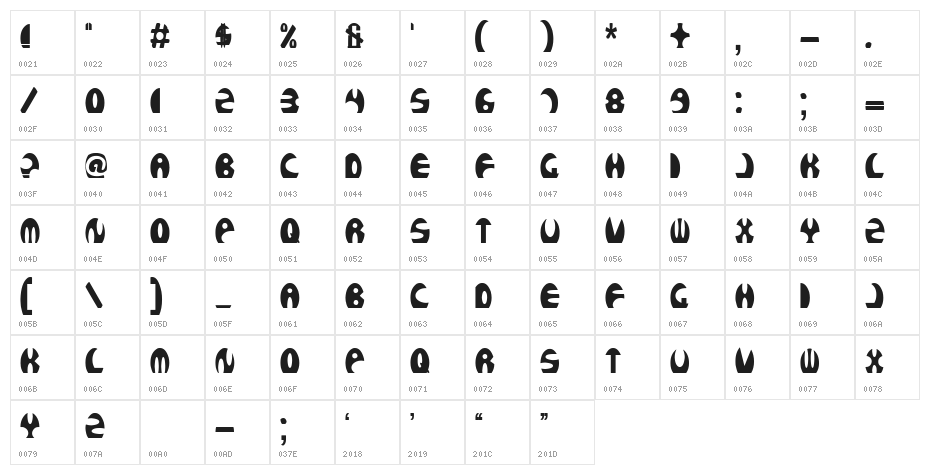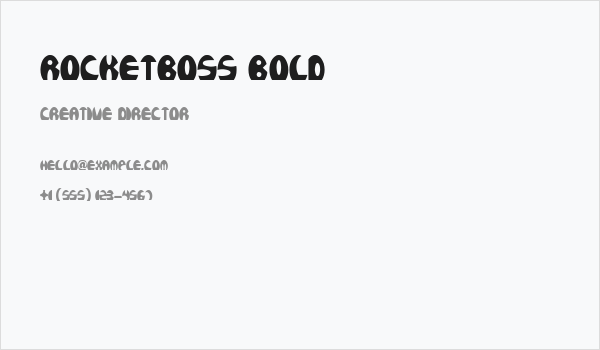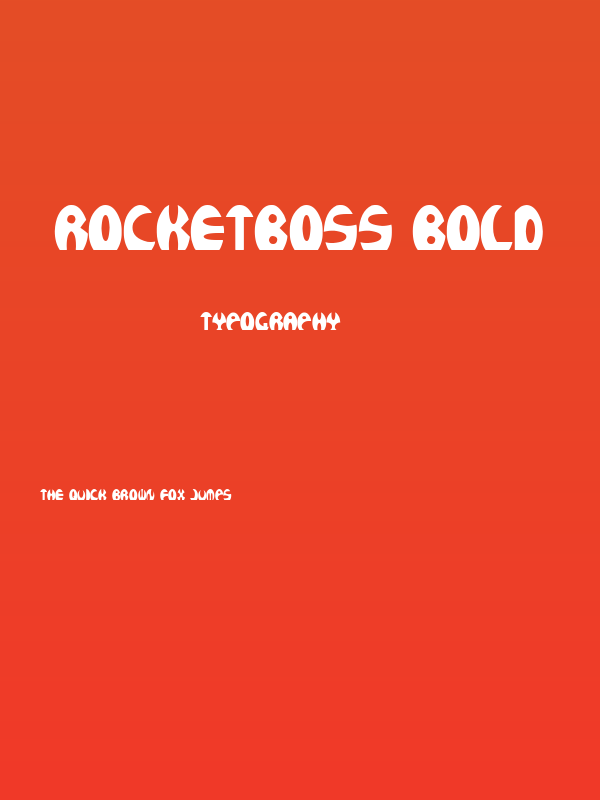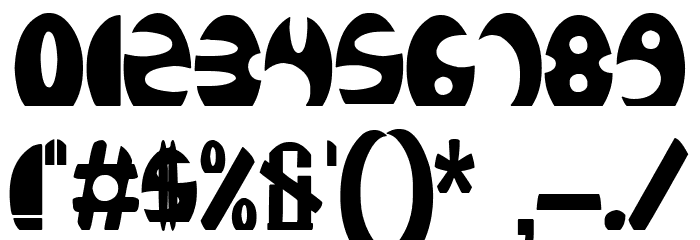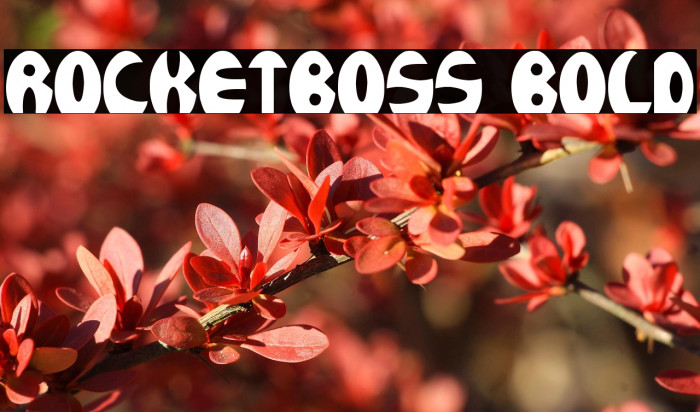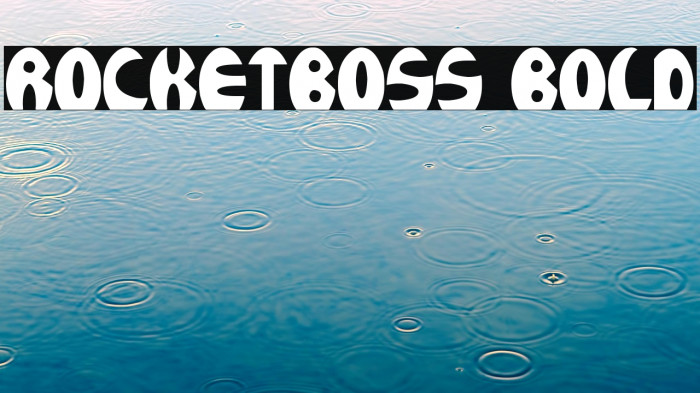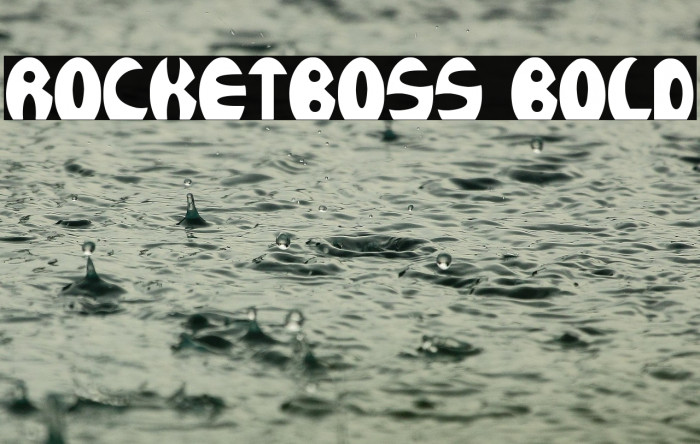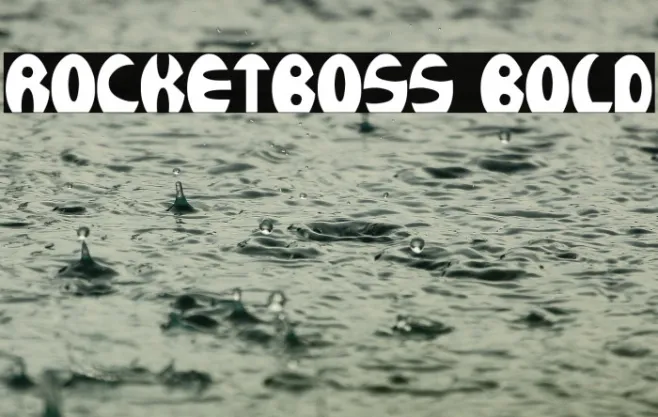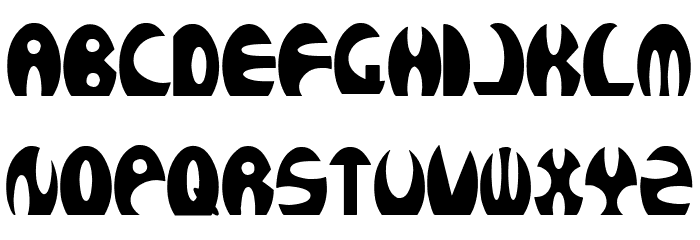
ROCKETBOSS Bold Font
ROCKETBOSS Bold Description
This font features a bold, futuristic design with a distinct geometric style. The characters are crafted with thick strokes and rounded edges, giving them a strong and impactful presence. The unique cutouts and shapes within each letter add a modern and dynamic flair, making it stand out in any design. The numbers and special characters maintain the same bold and geometric aesthetic, ensuring consistency across all text elements.
| Proposed Projects | Ideal for sci-fi themed projects, technology branding, video game titles, and modern poster designs. |